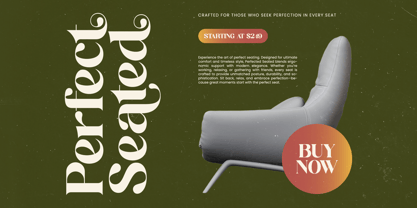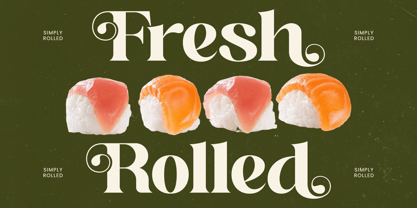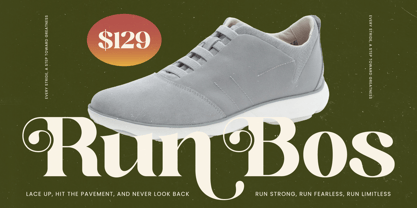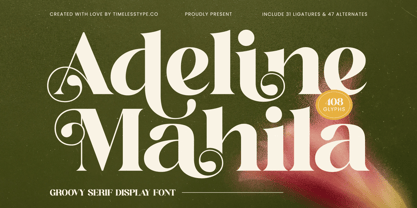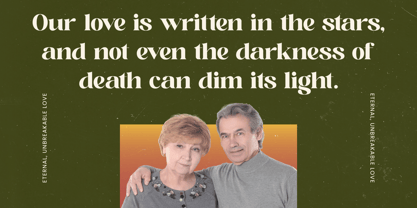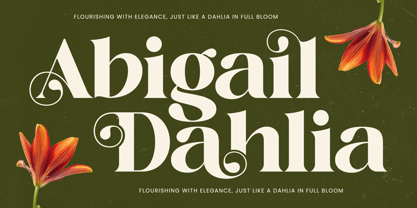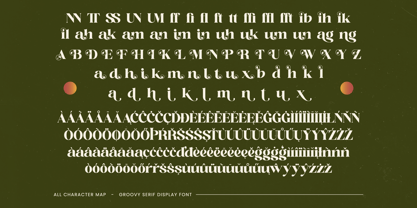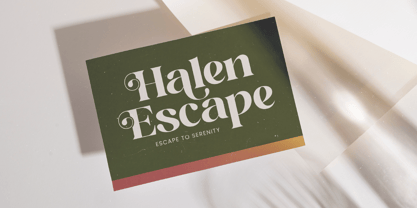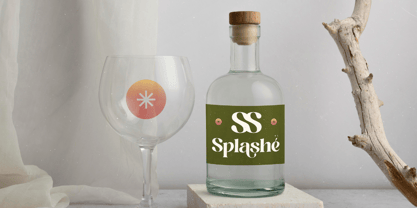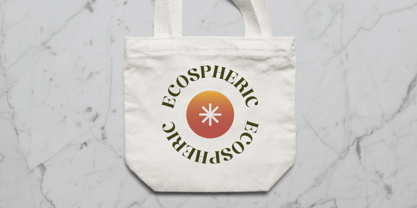
Adeline Mahila
The Adeline Mahila Font Family was designed by Heru Utama Putra and published by Timelesstype Studio. Adeline Mahila contains 2 styles and family package options. More about this family
Adeline Mahila - Groovy Serif Display Font , from Timelesstype, Suitable for any projects such as: logos, branding projects, homeware designs, product packaging, mugs, quotes, posters, shopping bags, t-shirts, book covers, name card, invitation cards, greeting cards, label, photography, watermark, special events, and all your other luxury and beautiful projects that need a Luxury Serif taste.